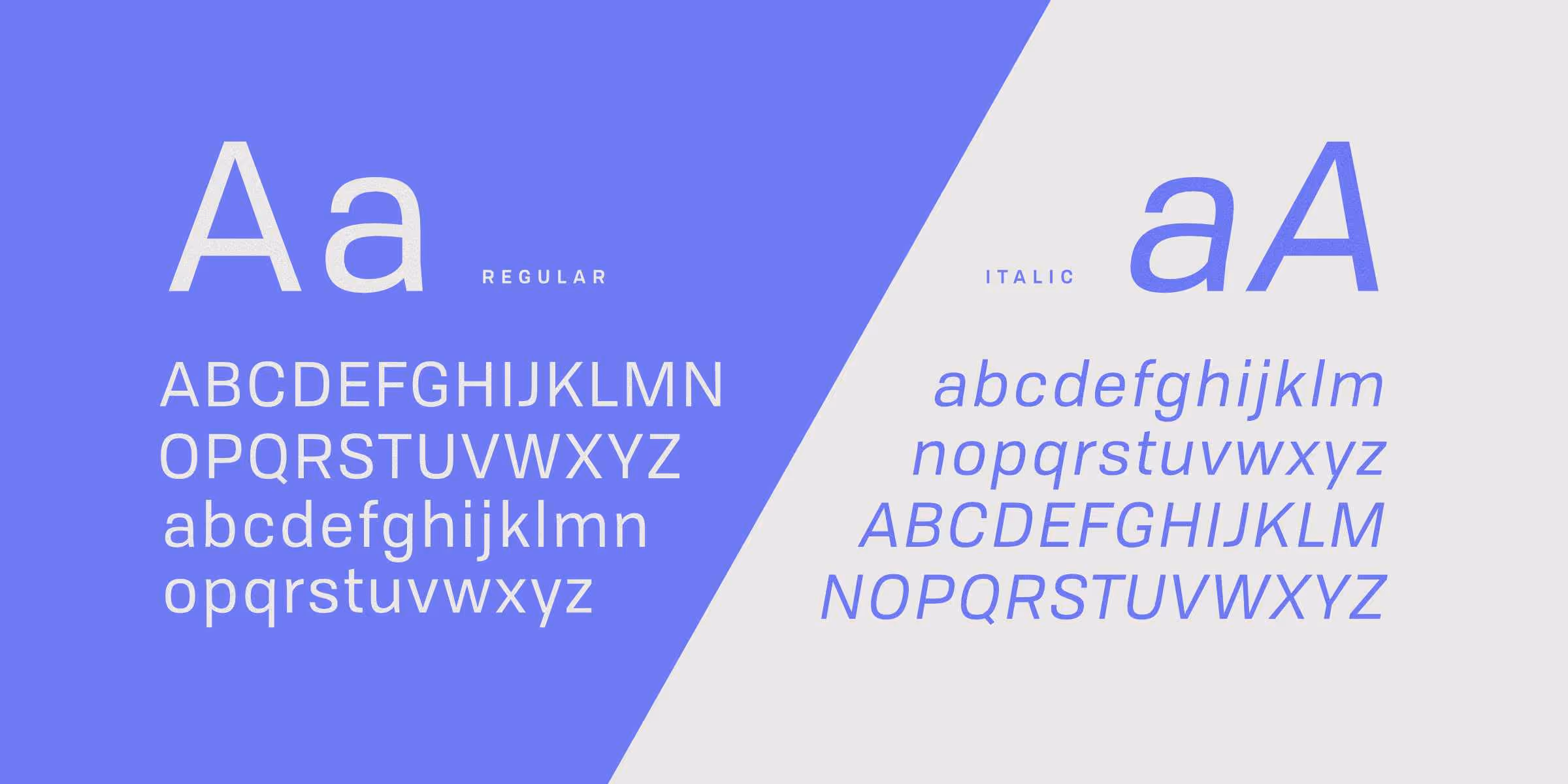
Tofino is a versatile neo-grotesque sans serif font family with 3 variable font axes (weight, width, italic) plus dedicated text styles. Perfect for branding, editorial design, UI/UX projects, and web typography. This Helvetica alternative offers more warmth and personality while maintaining Swiss-inspired clarity and legibility.
Tofino features two variable fonts. The first contains the main family with a very large range of styles within three axes—weight, width, and italic. The text styles are in a separate variable font and have two axes, weight and italic. Read more about variable fonts here.
All the things you love about Swiss style typography but with more hang loose attitude. The Swiss International Style was a movement in typography that aimed to create order. It was buttoned-up, straight-laced, and a bit pompous if we’re being honest. Tofino’s letterforms are inspired by the Neo-Grotesque typefaces of that time but with some buttons undone and some laces a little wiggly.
The design is inspired by small, descriptive labeling text used throughout an old type specimen. Tofino is a slightly squared, condensed workhorse family that is well-suited to a screen environment. The letterforms may have a European origin, but they were made on the West Coast of BC and some of that wild, rainforest energy made its way into the design.
Tofino supports 327 Latin-based languages including Vietnamese, Indigenous North American languages (such as Lakota, Nisg̱a'a, Sḵwx̱wú7mesh and more), and extensive European language coverage, see full list below.
✦ Added condensed, narrow, and wide widths
✦ Text styles added
✦ Italics for all styles